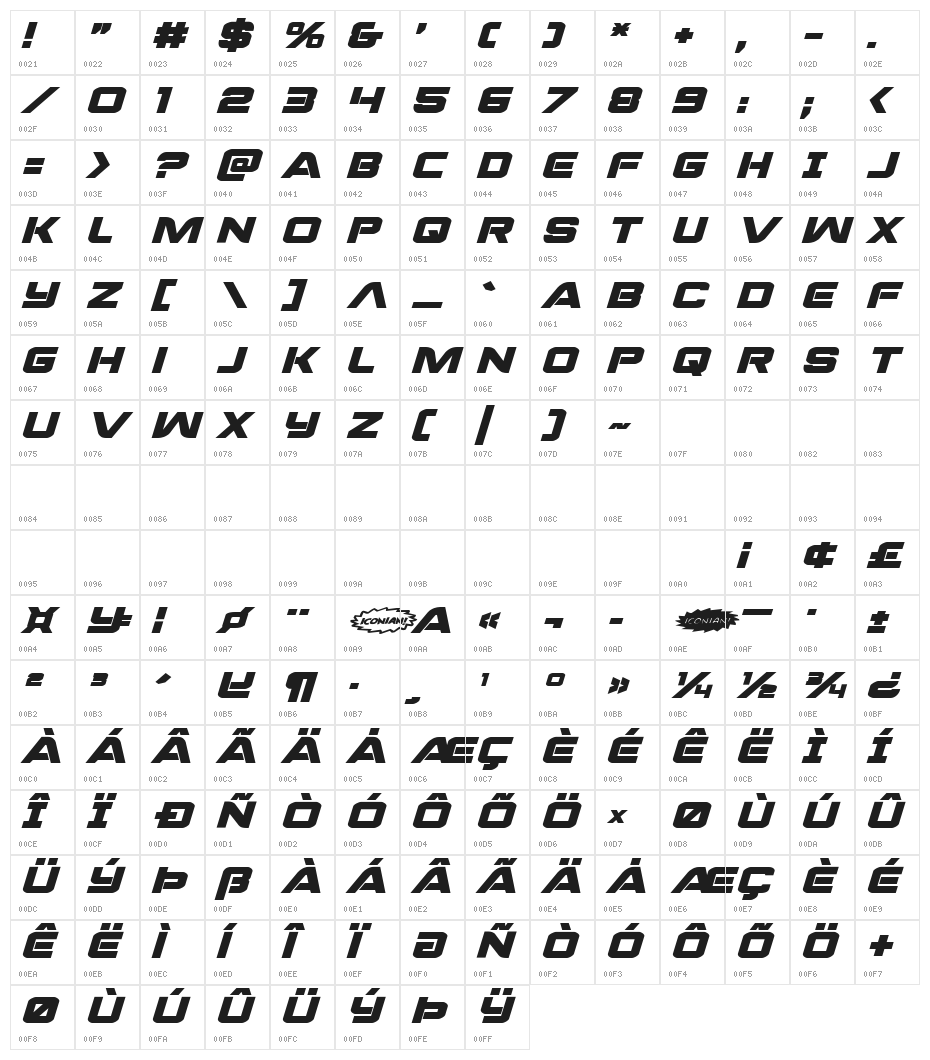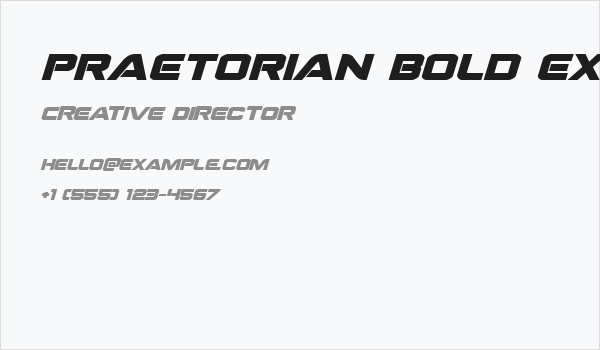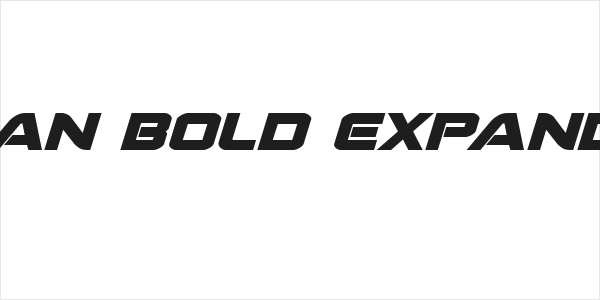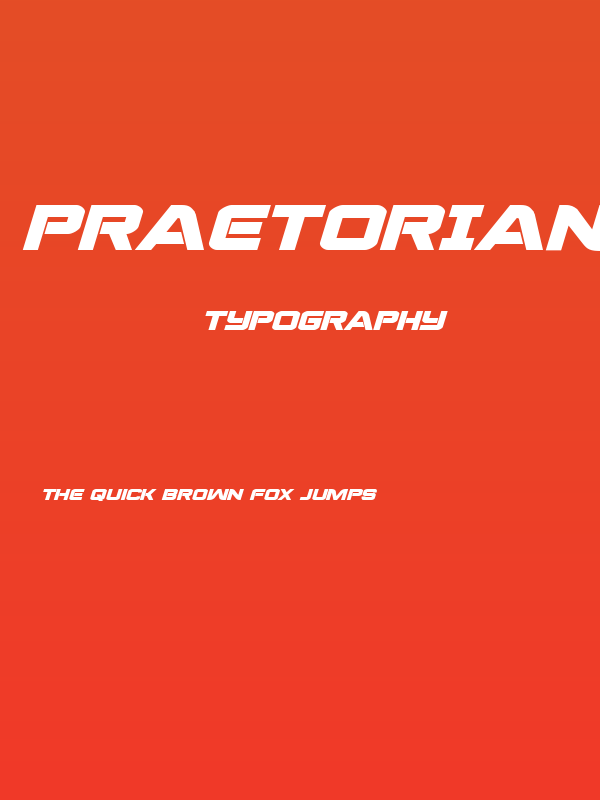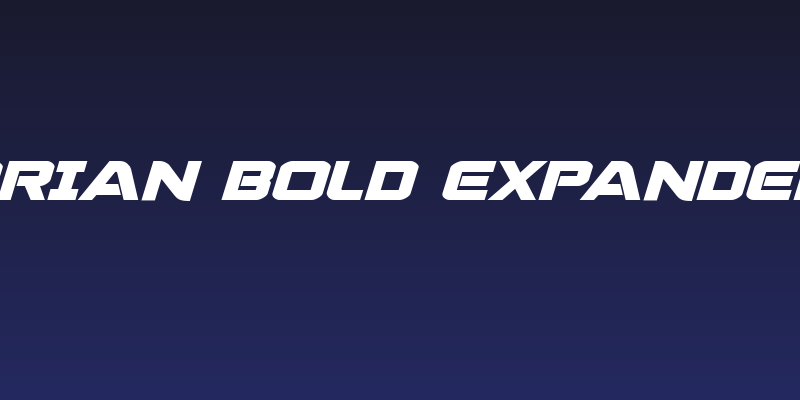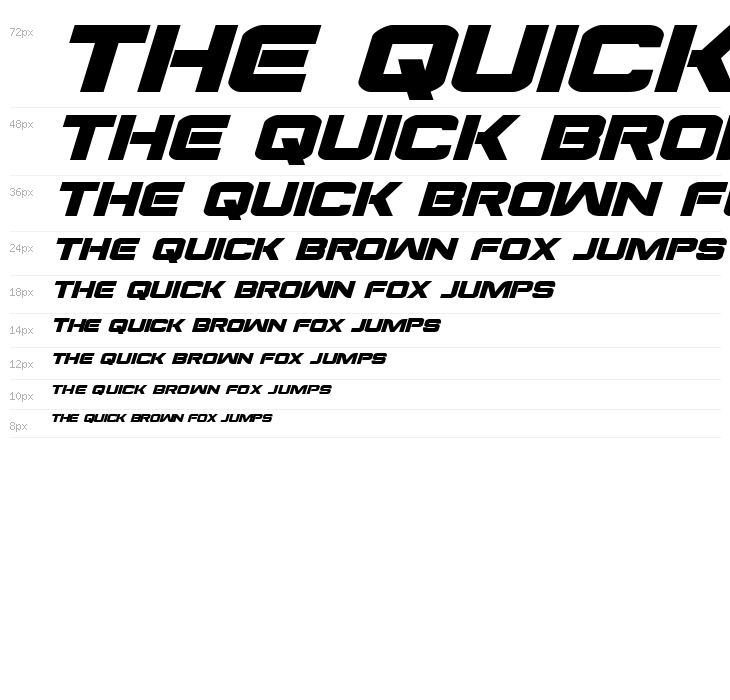
Praetorian Bold Expanded Italic Font
Praetorian Bold Expanded Italic Description
This font features a bold and expanded style with a distinct italic slant, giving it a dynamic and forward-moving appearance. The characters are robust and impactful, with a strong presence that commands attention. The expanded width enhances readability while maintaining a sleek and modern aesthetic. The italic angle adds a sense of motion and energy, making it suitable for projects that require a bold statement. The font's design is clean and geometric, with consistent stroke thickness that provides a uniform look across all characters. Its versatility makes it ideal for a variety of applications, from branding to advertising.
| Proposed Projects | Ideal for branding, advertising, sports team logos, and dynamic headlines. |